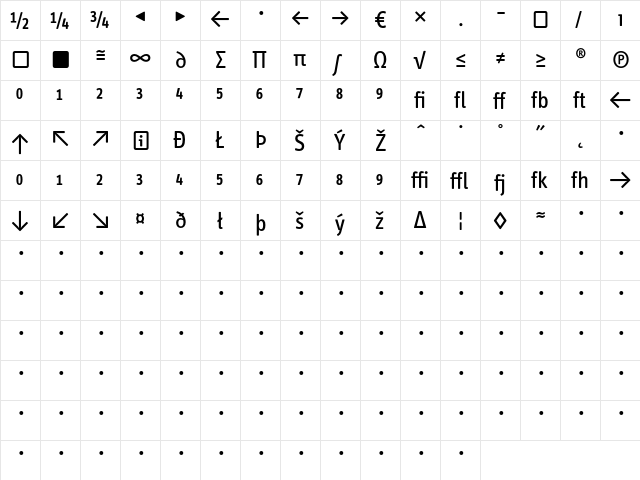
InfoDispBook RomanExp Font Preview
InfoDispBook RomanExp
InfoDispBook RomanExp Font Details
Design Context for InfoDispBook Typeface
InfoDispBook is a composed and adaptable typeface that performs quietly and consistently across a wide range of design contexts.